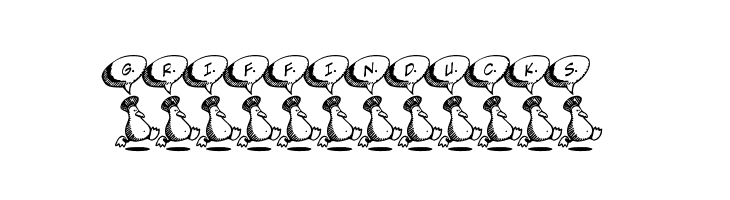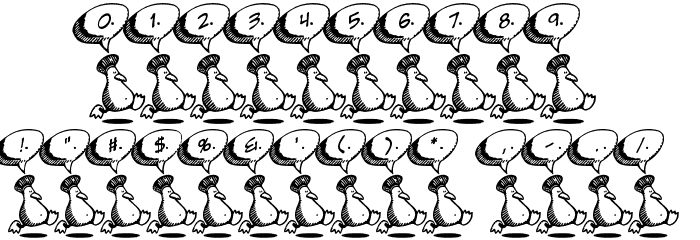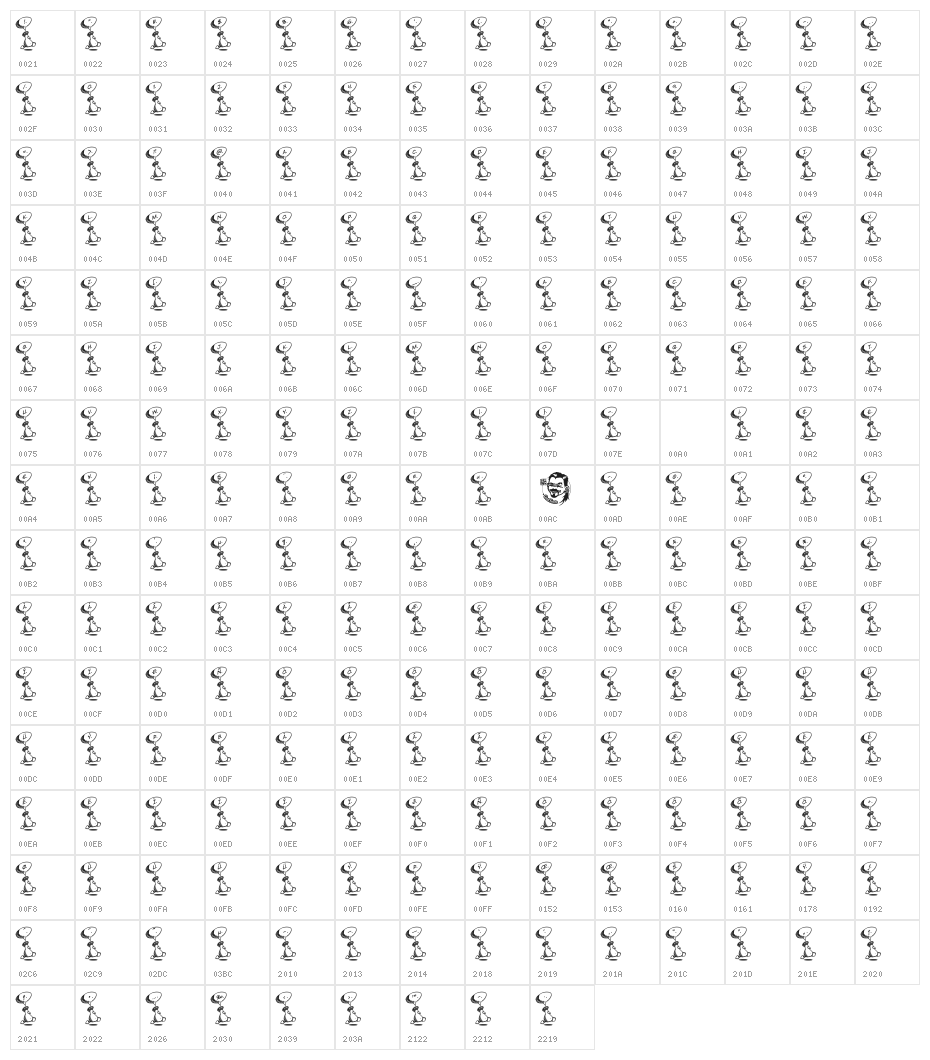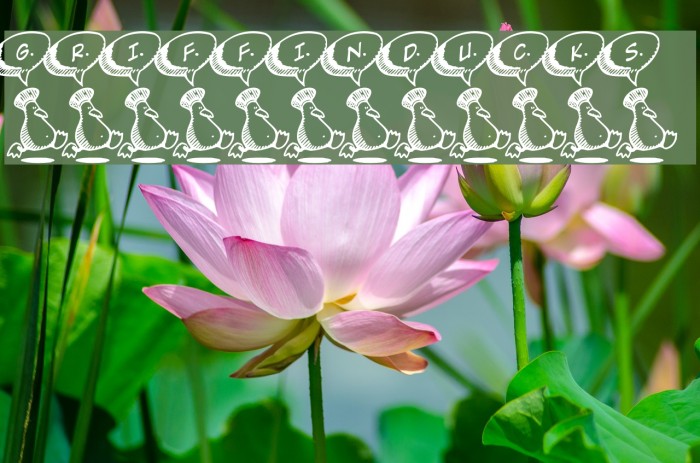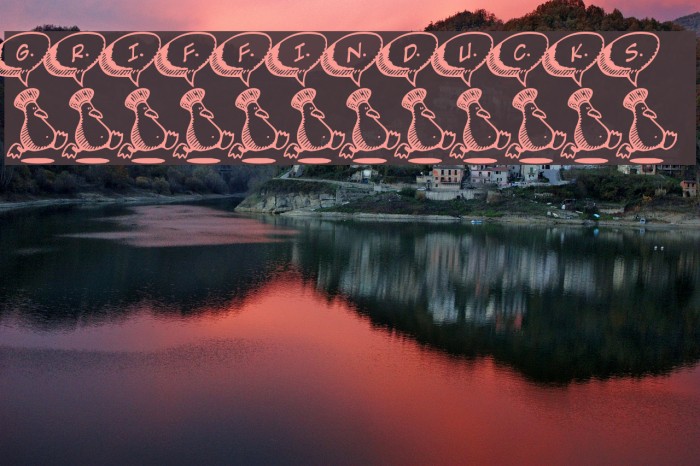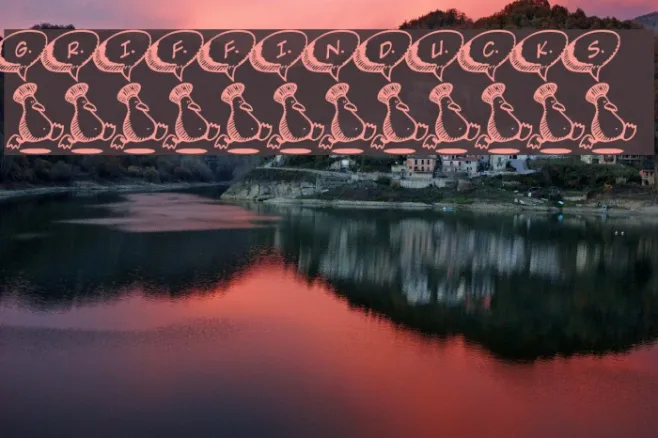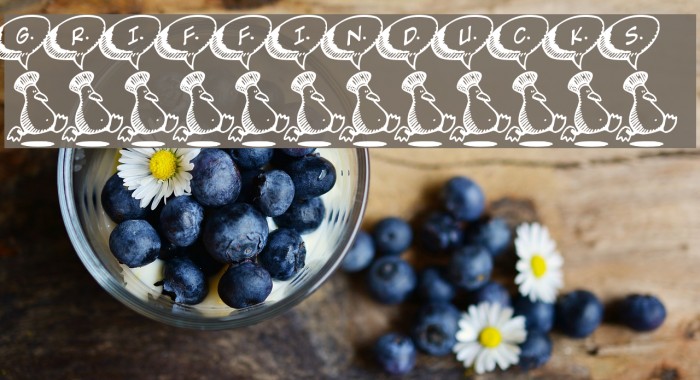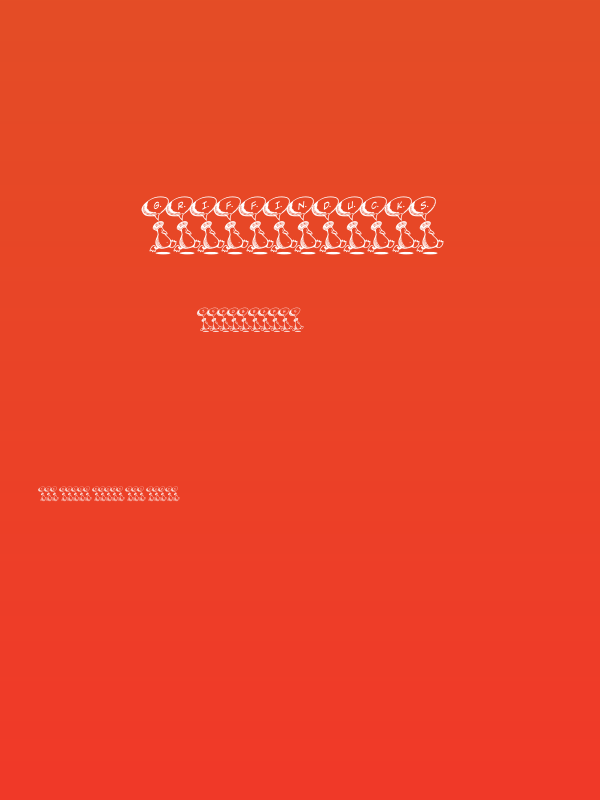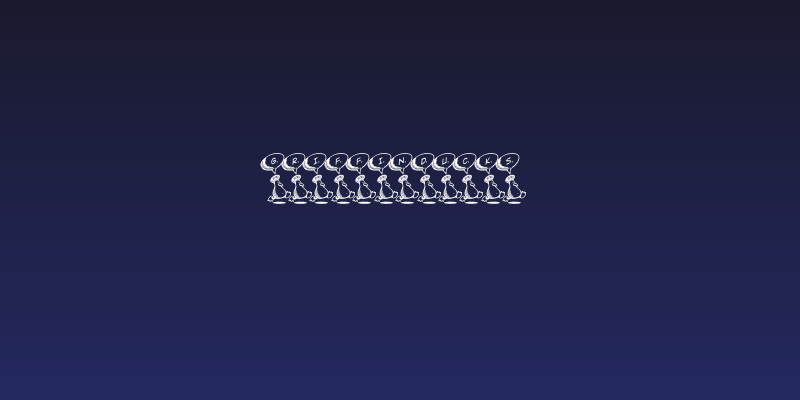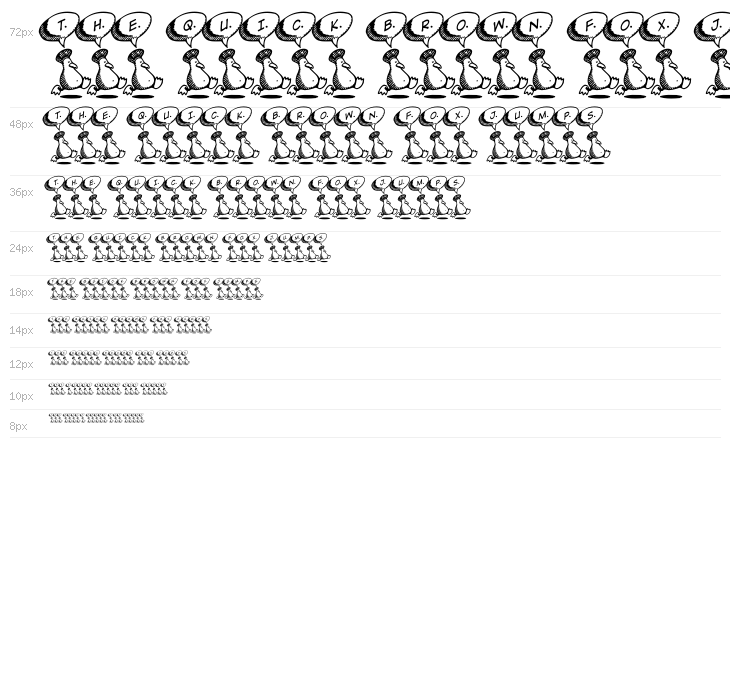
GriffinDucks Font
GriffinDucks Description
This whimsical and playful font features each character enclosed in a speech bubble held by a cartoon duck. The letters and numbers are hand-drawn, giving them a casual and fun appearance. The ducks add a unique and humorous touch, making this font ideal for projects that require a light-hearted and entertaining vibe. The characters are evenly spaced within the bubbles, ensuring readability despite the decorative nature of the font. The overall style is distinctly cartoonish and imaginative, perfect for creative and informal applications.
| Proposed Projects | Ideal for children's books, comic strips, playful posters, and greeting cards. |